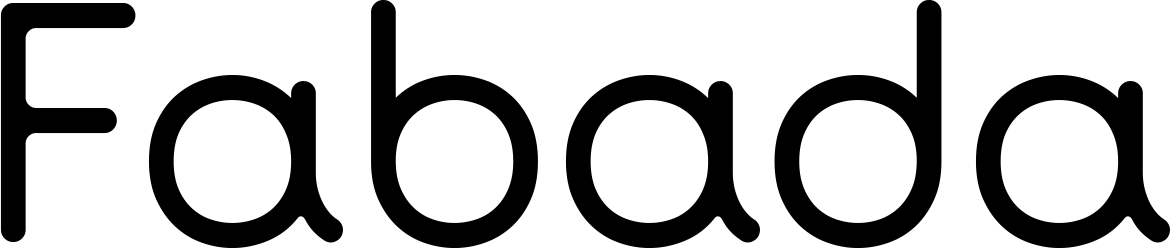
Fabada Font
Designed byDeFharo
Fabada in all of its simplicity, has a little bit of friendly feeling and can do a chill makeover to your texts. This sans serif font has semi-bold and tall characters. You can use this font for any cartoons and product names, advertisements, books, and channel banners, and honesty, it would look good on anything!
Soy deFharo, diseñador gráfico y web freelance y a este potaje de letras la he llamado: Fabada.
Fabada es una display retro font redondeada con 720 glifos, esta fuente fue con la que comencé a experimentar con el diseño tipográfico, después fue la génesis de mi otra tipografía llamada: La chata. Prueba a usar las funciones Opentype.